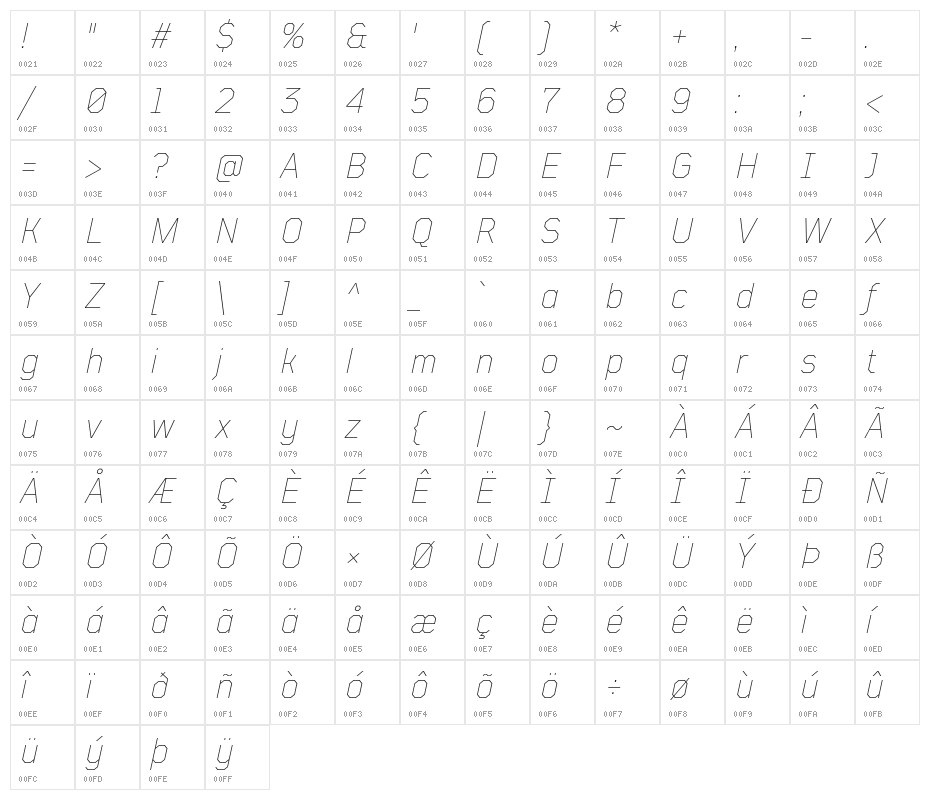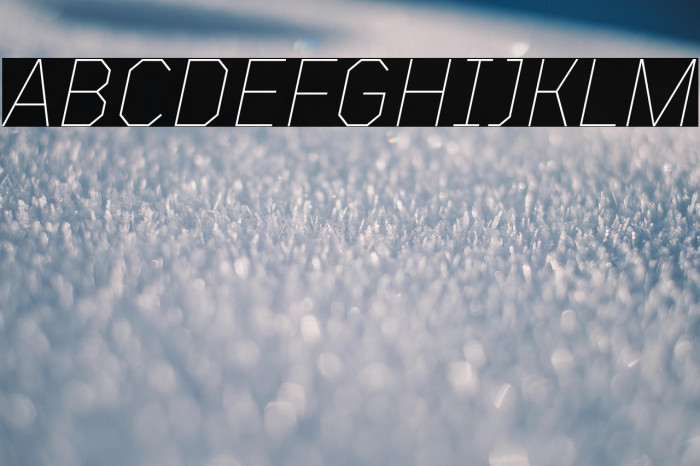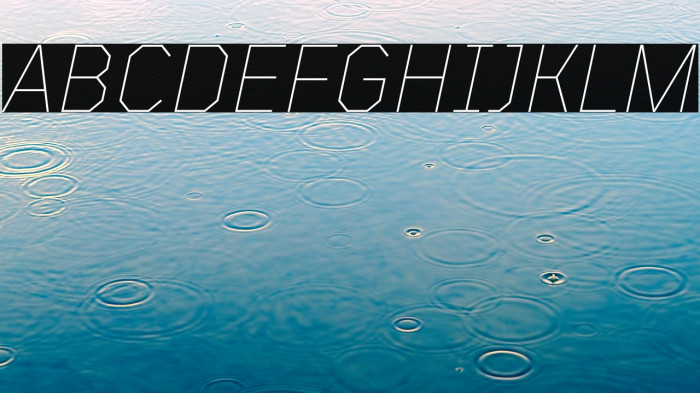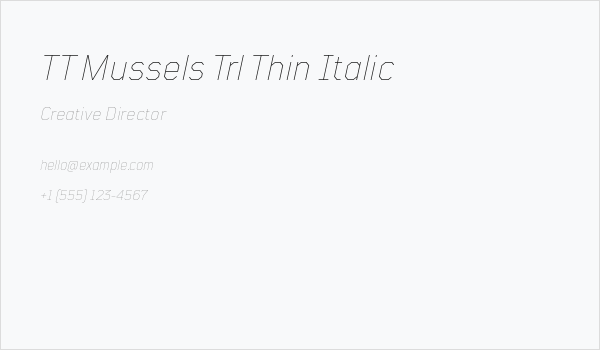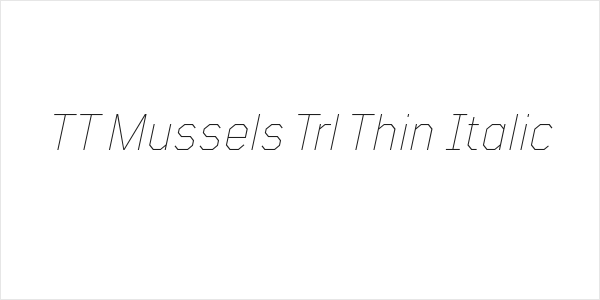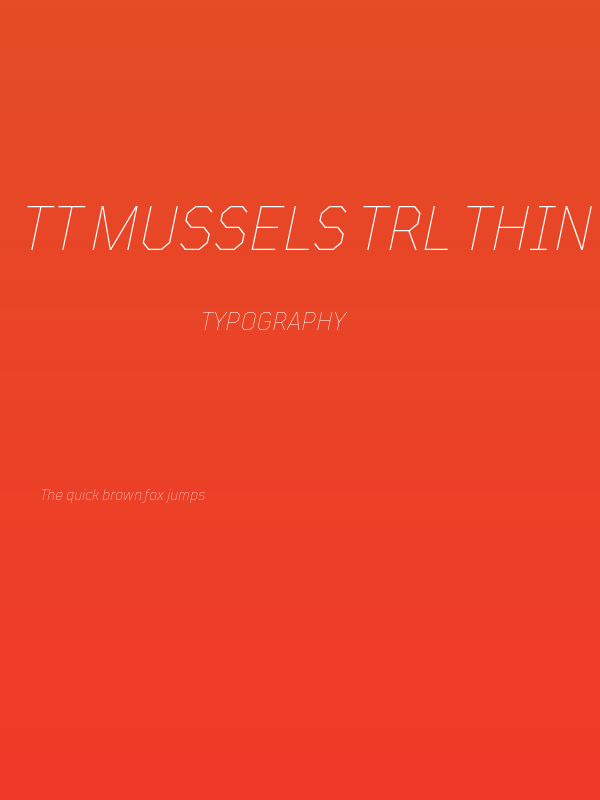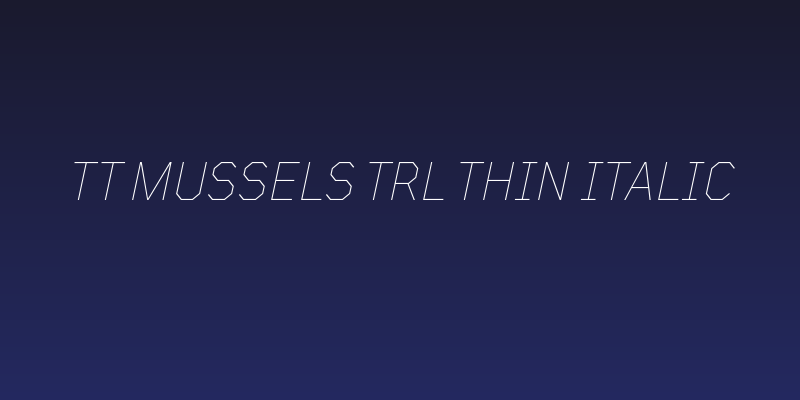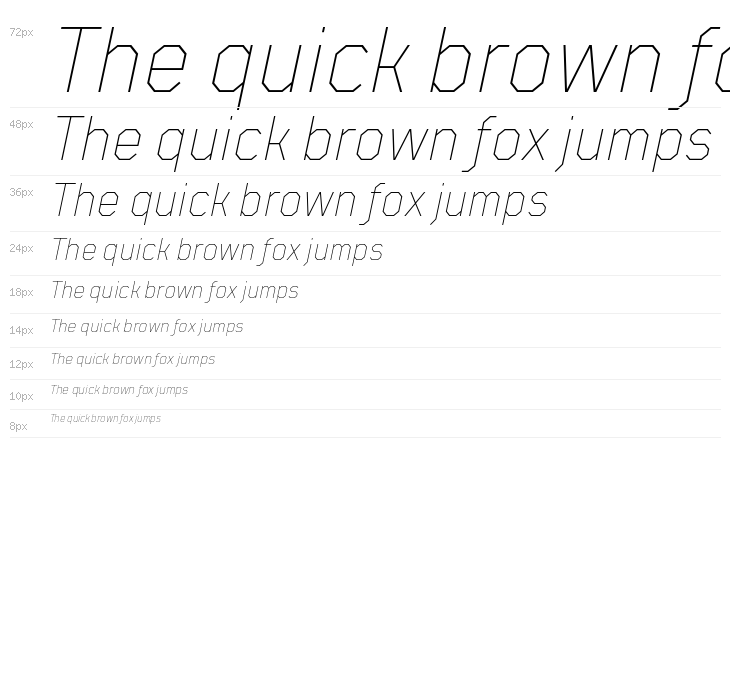
TT Mussels Trl Thin Italic Font
TT Mussels Trl Thin Italic Description
This font features a geometric and modern design with a thin, angular structure. The characters are constructed with straight lines and sharp angles, giving it a futuristic and technical appearance. The italic style adds a dynamic and forward-leaning aspect, enhancing its contemporary feel. The uppercase and lowercase letters maintain a consistent style, with a uniform stroke width that contributes to its sleek and minimalist look. The numerals and special characters follow the same design principles, ensuring a cohesive and harmonious appearance across all glyphs.
| Use Case | Logos, Headlines, Digital Interfaces |
| Proposed Projects | Ideal for technology branding, modern posters, digital interfaces, and futuristic designs. |